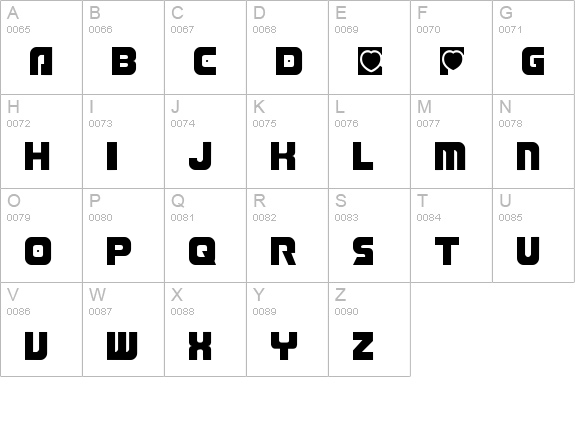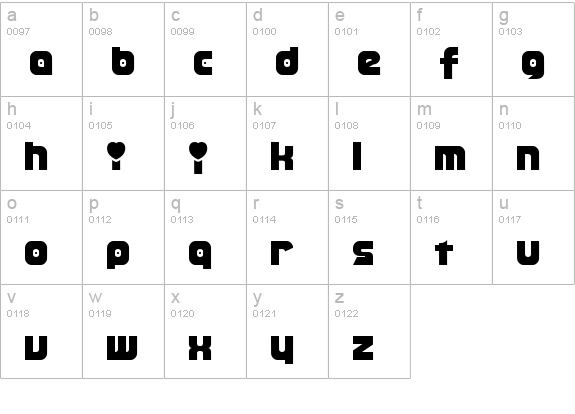
Transmaidens Normal Font Details
Transmaidens Normal is the standard, neutral variant in the Transmaidens typeface family \xE2\x80\x94 well suited to general body text, paragraphs, and standard typographic work.
Transmaidens Normal font is an elegant and versatile typeface that combines modern and classic elements to create a unique and timeless design. This font is perfect for both professional and personal projects, from branding and advertising to invitations and social media graphics. With its clean lines and distinctive curves, Transmaidens Normal font exudes a sense of sophistication and style. It is easily readable at any size, making it suitable for both headers and body text. The balanced letterforms and consistent spacing ensure a smooth reading experience, while the subtle details add a touch of personality to your designs. One of the best things about Transmaidens Normal font is that it is free! Yes, you read that right. This high-quality font is freely available to download at FontsMarket.com. Whether you're a professional designer or a hobbyist, you can enjoy the benefits of this stunning font without breaking the bank. What sets Transmaidens Normal font apart is its versatility. It can be used in a wide range of design projects, from corporate materials to wedding invitations. Its timeless appeal ensures that your designs will stand the test of time, making it a valuable asset for any creative endeavor. So why wait? Head over to FontsMarket.com and download Transmaidens Normal font today. Whether you're a seasoned designer or just starting out, this font is sure to elevate your designs and make a lasting impression. Don't miss out on the opportunity to add this beautiful font to your collection – and best of all, it won't cost you a penny!